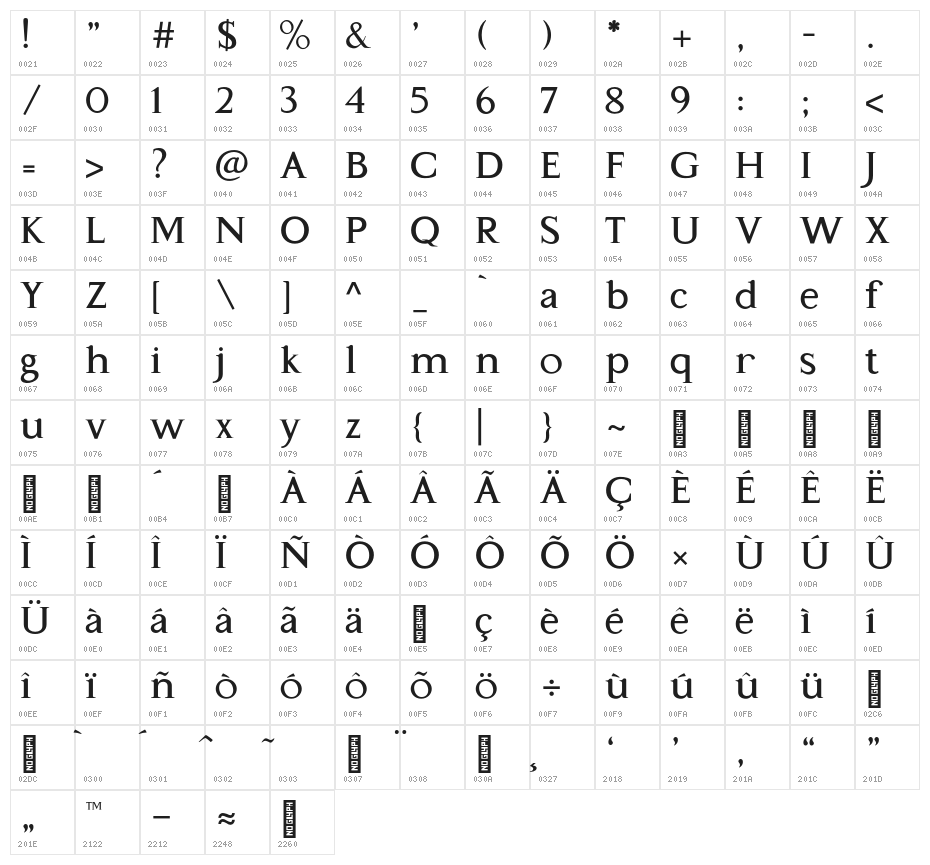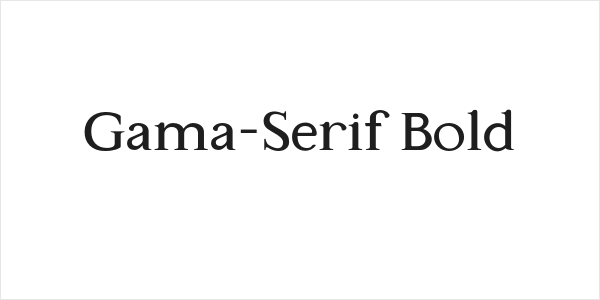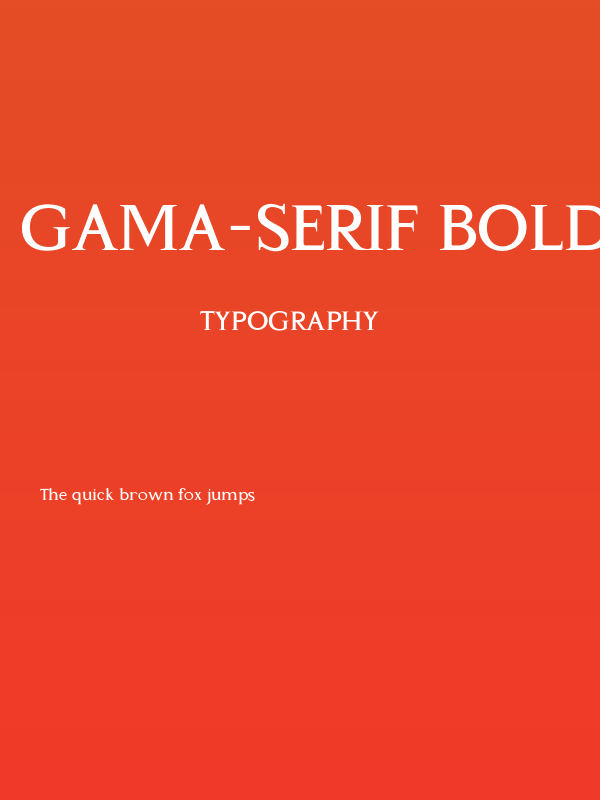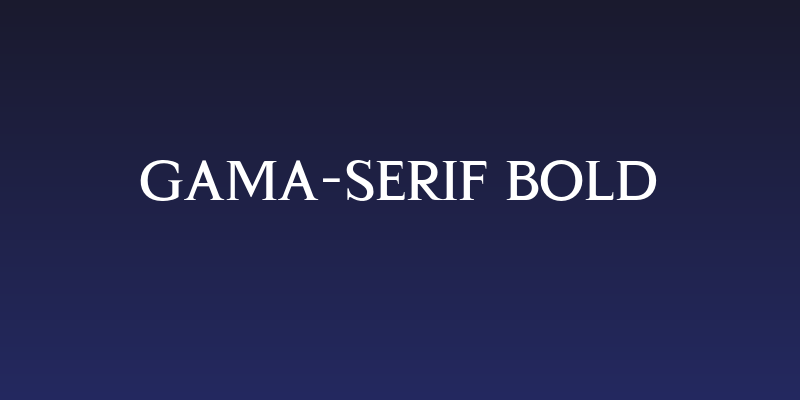
Gama-Serif Bold Font
Gama-Serif Bold Description
This serif font exudes a classic elegance with its bold weight and high contrast between thick and thin strokes. The characters are well-defined, featuring sharp serifs that add a touch of sophistication. The uppercase letters are stately and commanding, while the lowercase letters maintain a graceful flow. The numerals are clear and balanced, making them suitable for both formal and modern contexts. Special characters are crafted with precision, ensuring versatility across various applications. The overall design is timeless, making it a great choice for projects that require a touch of tradition and authority.
| Proposed Projects | Ideal for book covers, editorial design, branding, and formal invitations. |